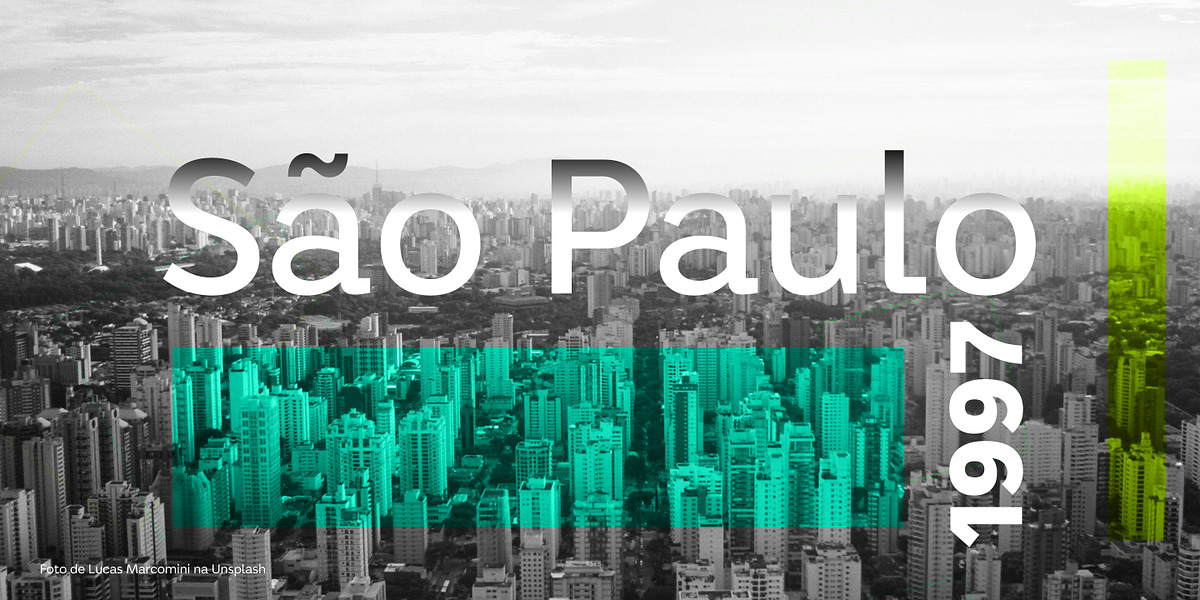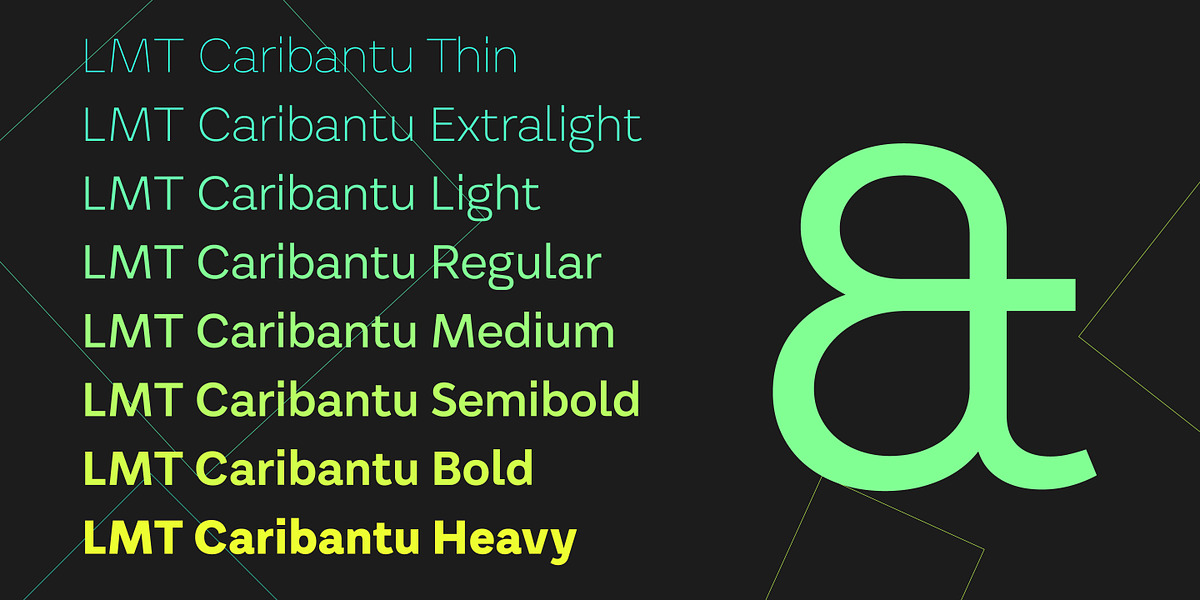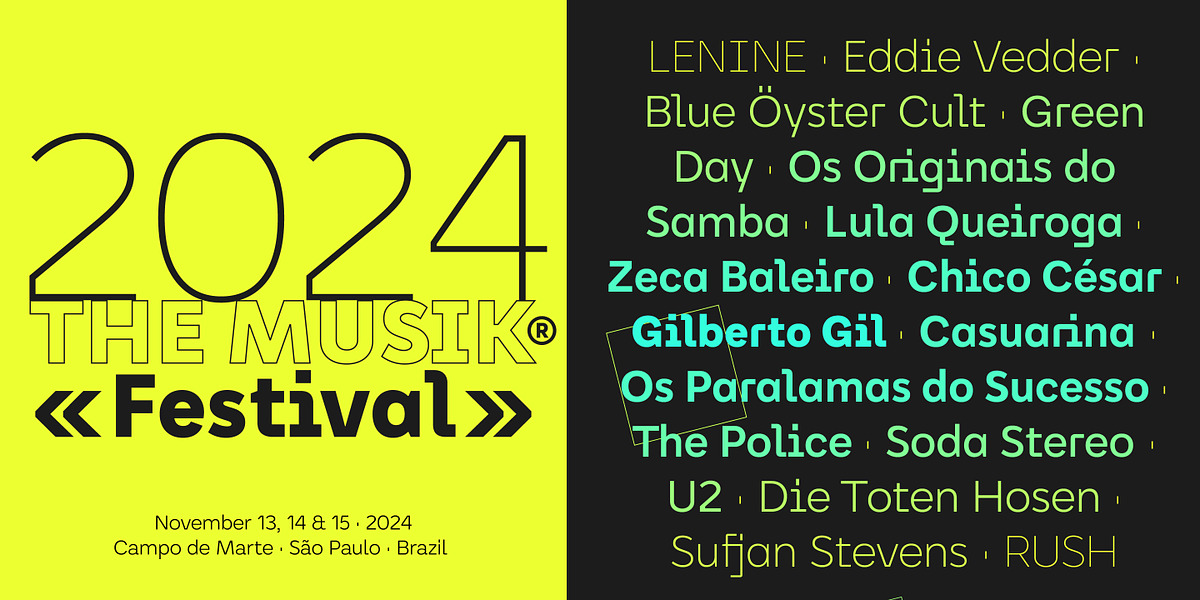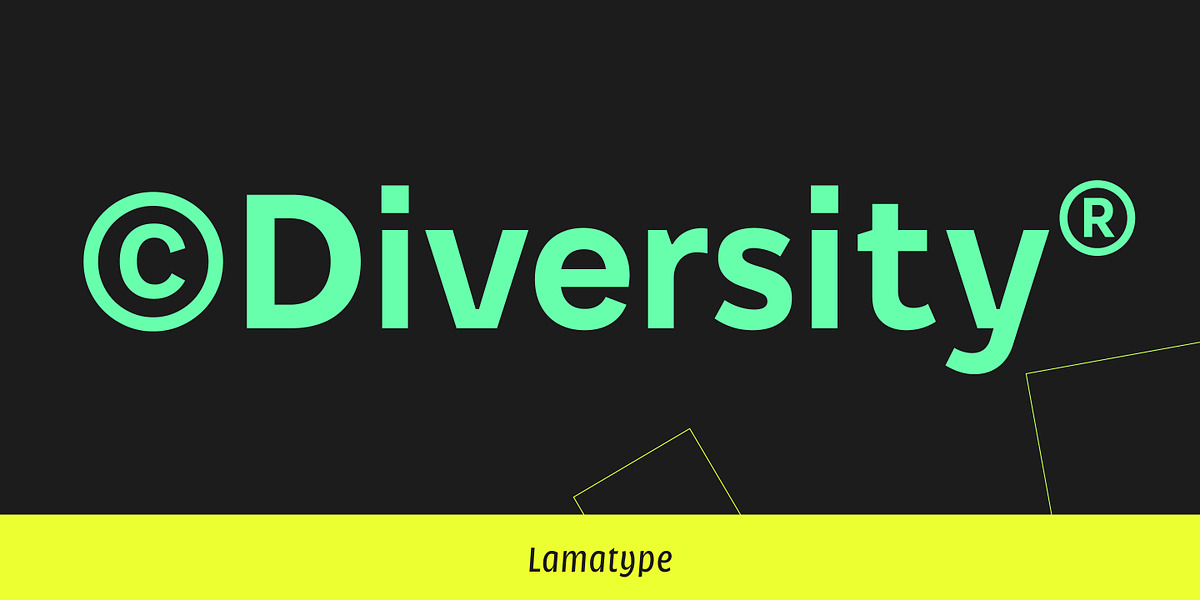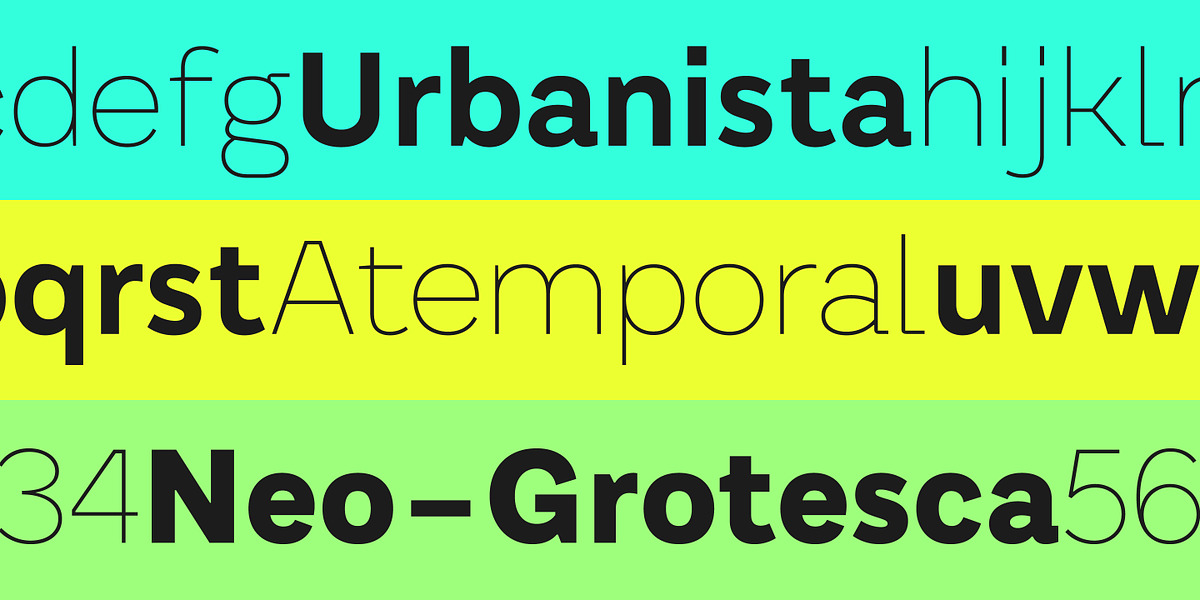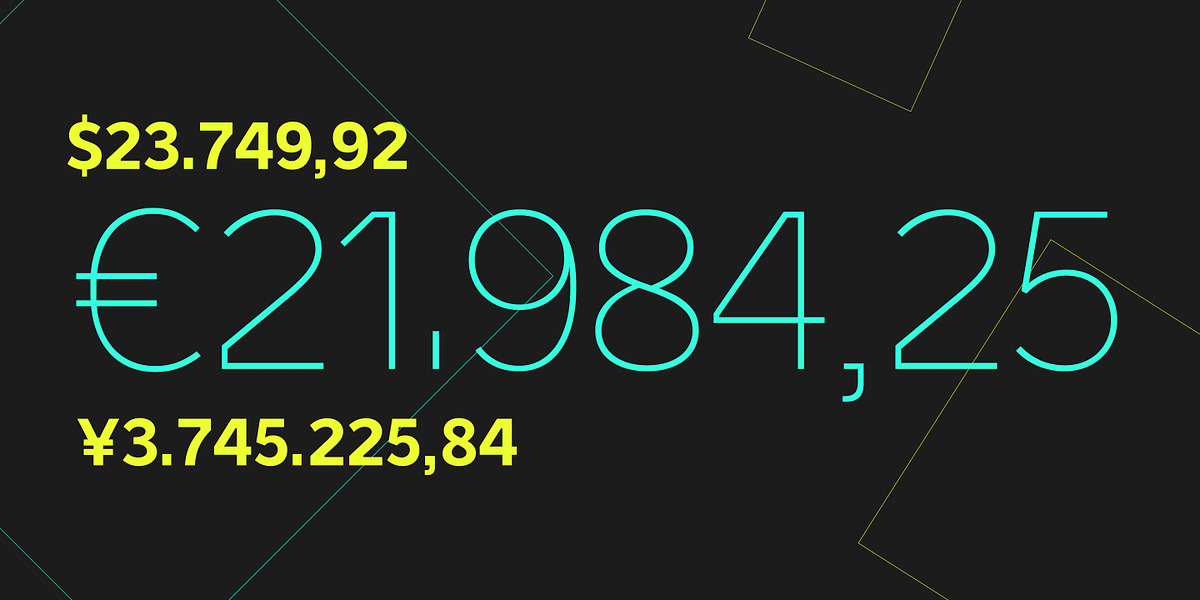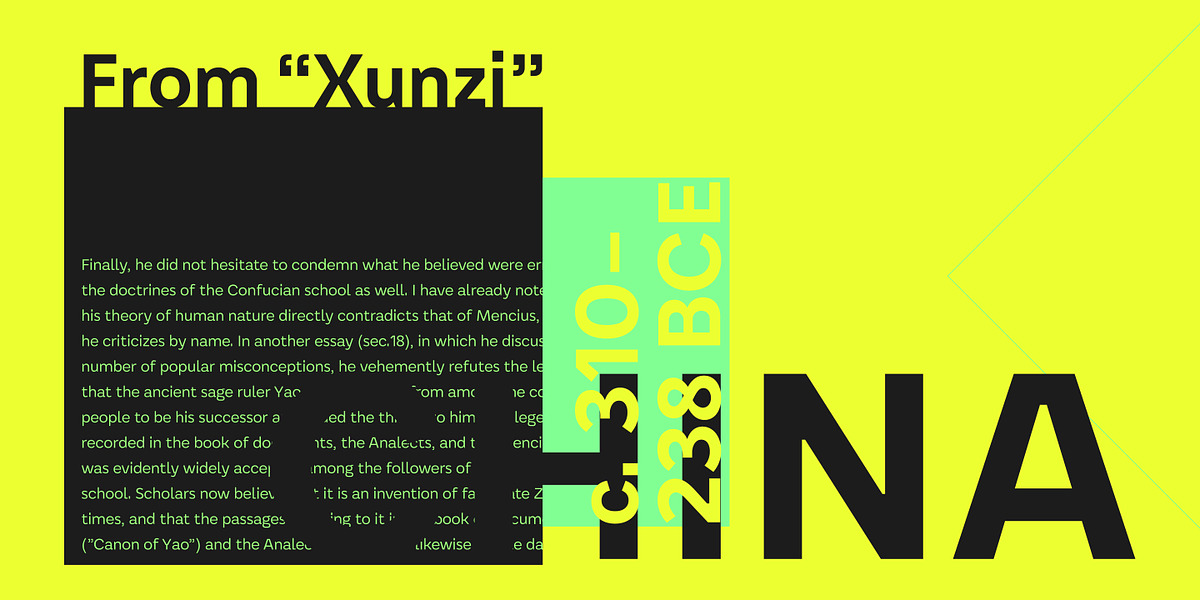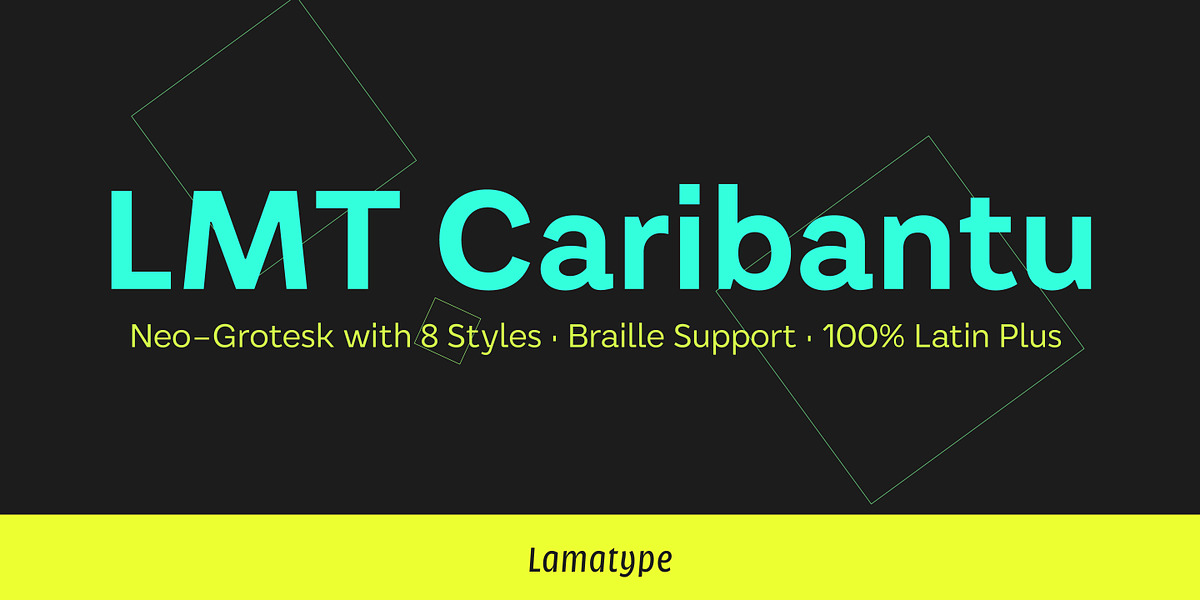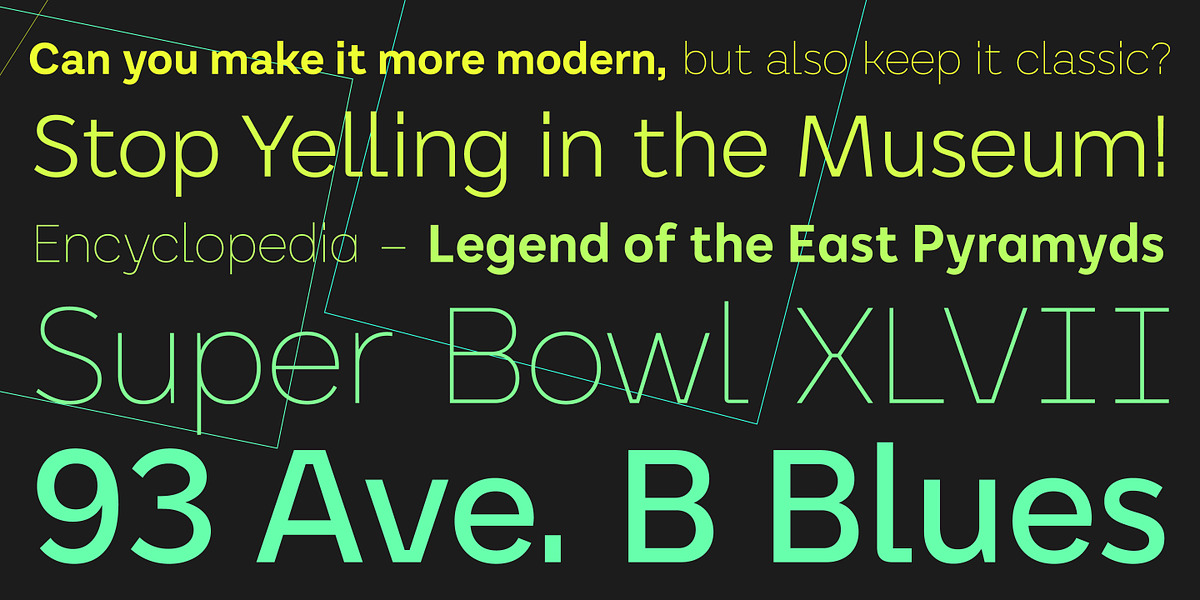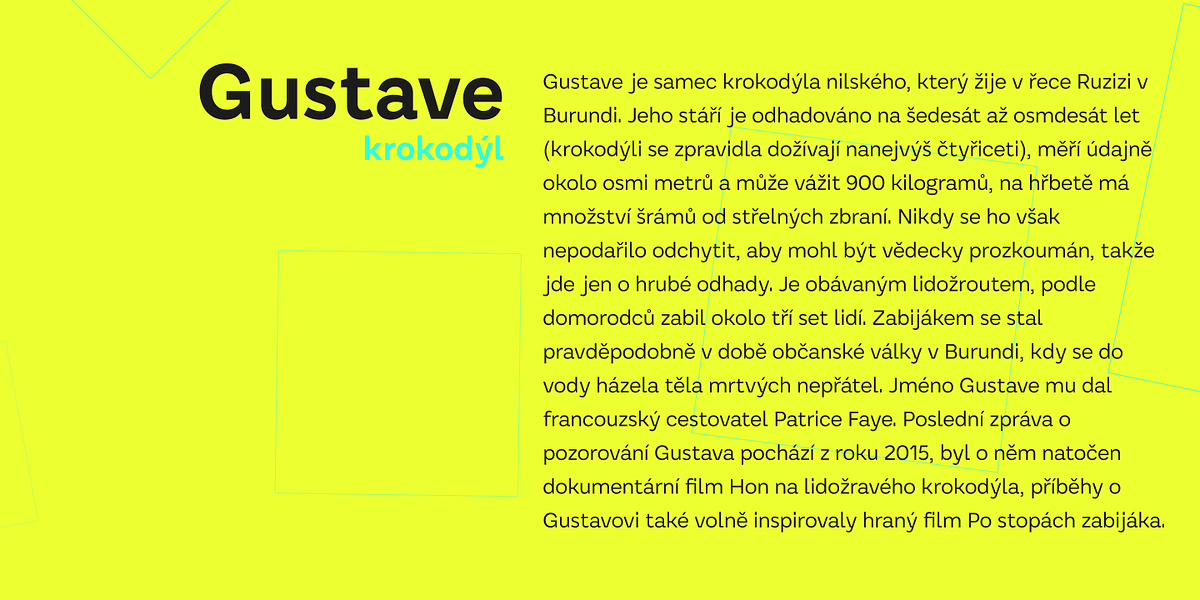
LMT Caribantu
LMT Caribantu is a contemporary geometric sans serif typeface designed for versatility. It offers a wide range of weights, including a variable font option, allowing for precise typographic control. With support for all Latin languages and braille characters, it caters to diverse linguistic needs and promotes inclusivity. The inclusion of stylistic sets and alternative glyphs provides designers with the flexibility to customize the typeface's appearance, making it suitable for various applications such as branding, web design, signage, and packaging.